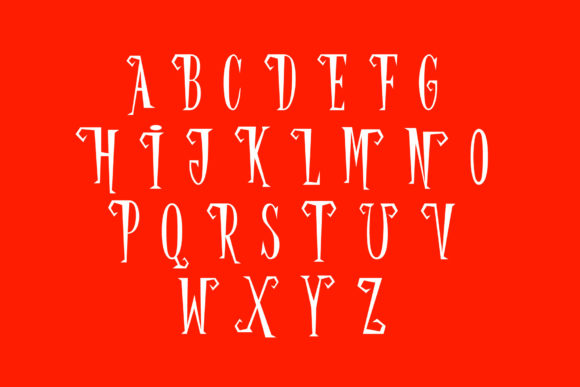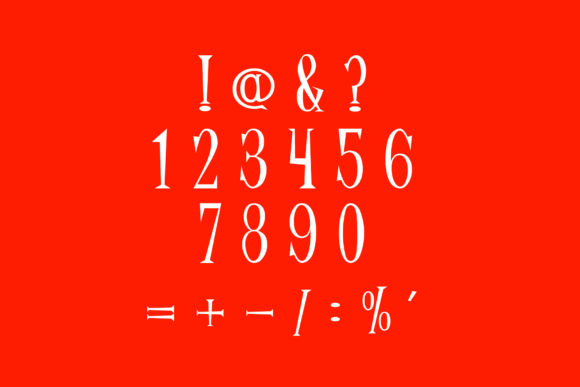
Introduction to Retracula Font
Retracula is a great font, sharp like Dracula Teeth.
Imagine the number of combinations you can create using this font Retracula looks beautiful on wedding invitations, greeting cards, logos, posters, labels, t-shirt designs, logos, business cards and is perfect for use in ink or watercolor works, fashion, magazines, packaging and food menus, childrenโs books, and more.
Retracula Font offers exceptional quality and versatility, making it a valuable addition to your design toolkit. Whether you’re creating for personal projects or commercial use, Retracula Font delivers professional results.